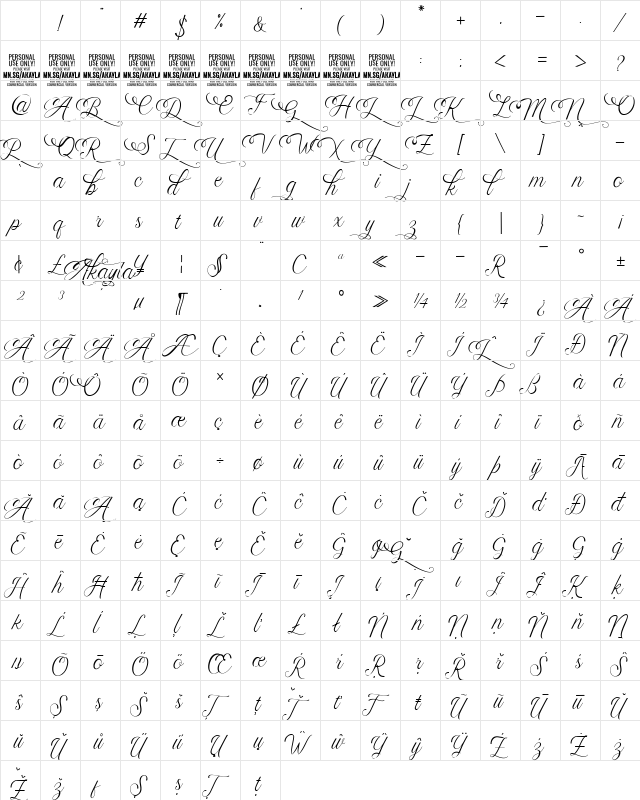
Complete Akayla Script Deco PERSONAL USE Regular glyph index. Displaying only characters natively supported by Akayla Script Deco PERSONAL USE Regular font.
Akayla Script Deco PERSONAL USE flows with the natural rhythm of handwritten lettering, making it ideal for designs that call for warmth and personal expression.
Font Pairing: Combine Akayla Script Deco PERSONAL USE with a simple geometric sans for maximum contrast - the tension between flowing curves and clean structure is a classic typographic pairing.
Pro Tip: Use Akayla Script Deco PERSONAL USE for short runs of text - names, titles, or taglines. Extended body copy in script faces tires the eye quickly.